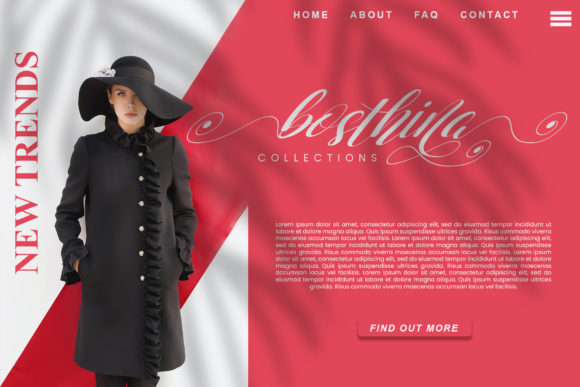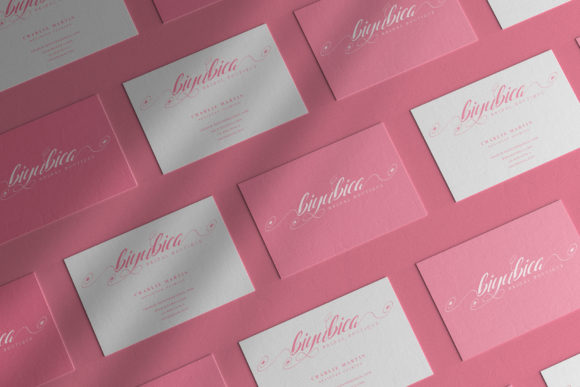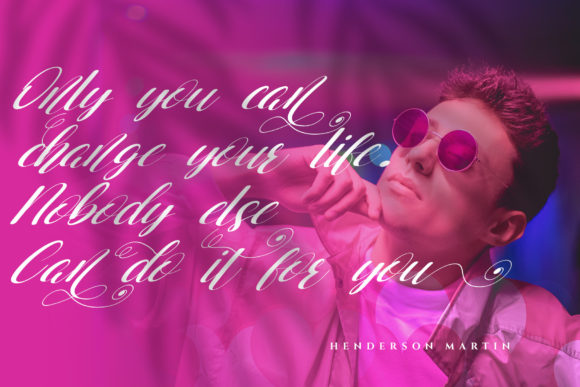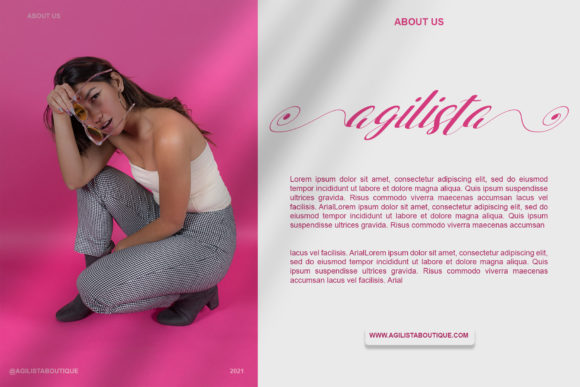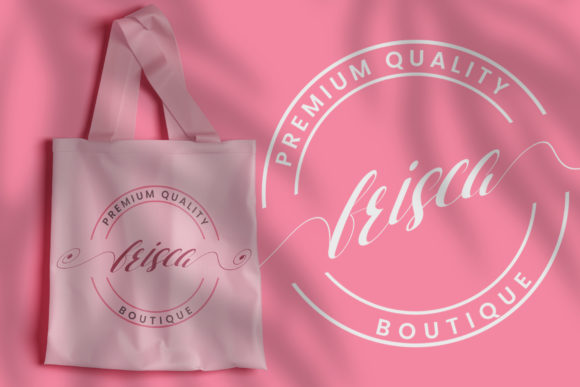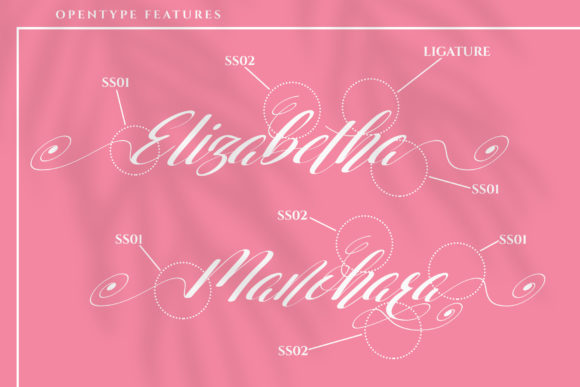
Introducing Hanabelle Font: Elevate Your Designs with Elegance and Sophistication
In the world of typography, a font can make or break the aesthetic of a design. For those seeking a touch of elegance and sophistication, Hanabelle Font is an exceptional choice. This stylish and incredibly elegant script font is perfect for designers and crafters looking to add a handwritten touch to their projects. Whether you’re working on wedding invitations, thank you cards, quotes, greeting cards, logos, business cards, or any other design that requires a personal and refined feel, Hanabelle is the ideal solution.
What Makes Hanabelle Stand Out?
Hanabelle Font boasts a range of features that set it apart from other script fonts. Its elegant and flowing script style is reminiscent of handwritten calligraphy, adding a touch of luxury and sophistication to any design. The font’s versatility allows it to be used across various applications, from formal events like weddings to more casual projects such as branding and advertising.
Key Features of Hanabelle Font
- Elegant Script Style: Hanabelle’s script style is both elegant and stylish, making it perfect for designs that require a touch of sophistication.
- PUA Encoded: Hanabelle is PUA (Private Use Area) encoded, which means you can easily access all glyphs and swashes. This feature allows for greater flexibility and creativity in your designs.
- Wide Range of Applications: From wedding invitations and greeting cards to logos and business cards, Hanabelle is suitable for a variety of design projects.
- Easy to Use: With Hanabelle, you can effortlessly add a handwritten touch to your designs, making them stand out from the crowd.
Hanabelle Font is a dream come true for designers and crafters who want to add a personal touch to their work. The font’s elegant style and versatility make it an excellent choice for:
- Wedding and Event Design: Create stunning wedding invitations, save-the-date cards, and event branding with Hanabelle’s sophisticated script style.
- Stationery and Cards: Add a touch of elegance to thank you cards, greeting cards, and other stationery with Hanabelle’s beautiful handwriting.
- Branding and Logo Design: Use Hanabelle to create unique and memorable logos, business cards, and brand identities that exude sophistication and style.
- Digital and Print Media: Hanabelle is perfect for use in digital media, such as social media graphics, and print media, like brochures and flyers.
Tips for Using Hanabelle Font
To get the most out of Hanabelle Font, here are a few tips:
- Experiment with Swashes: Take advantage of Hanabelle’s PUA encoding to access a wide range of swashes and glyphs, adding a unique touch to your designs.
- Mix and Match: Combine Hanabelle with other fonts to create a distinctive and eye-catching design.
- Pay Attention to Spacing: Adjust the spacing between letters and words to ensure your design looks elegant and refined.
Hanabelle Font is an exceptional choice for designers and crafters seeking to add a touch of elegance and sophistication to their work. With its stylish script style, PUA encoding, and versatility, Hanabelle is perfect for a wide range of design applications. Whether you’re working on a wedding invitation, logo, or business card, Hanabelle is sure to elevate your design and leave a lasting impression.